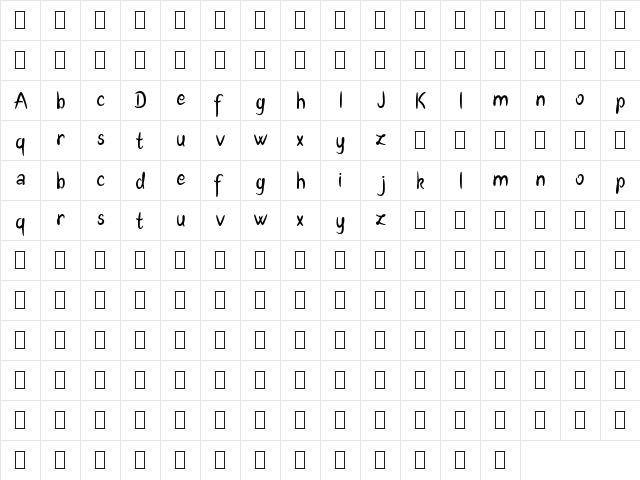
Adetar Demo Font Preview
Adetar Demo
Design Context for Adetar Typeface
Adetar is a composed and adaptable typeface that performs quietly and consistently across a wide range of design contexts.